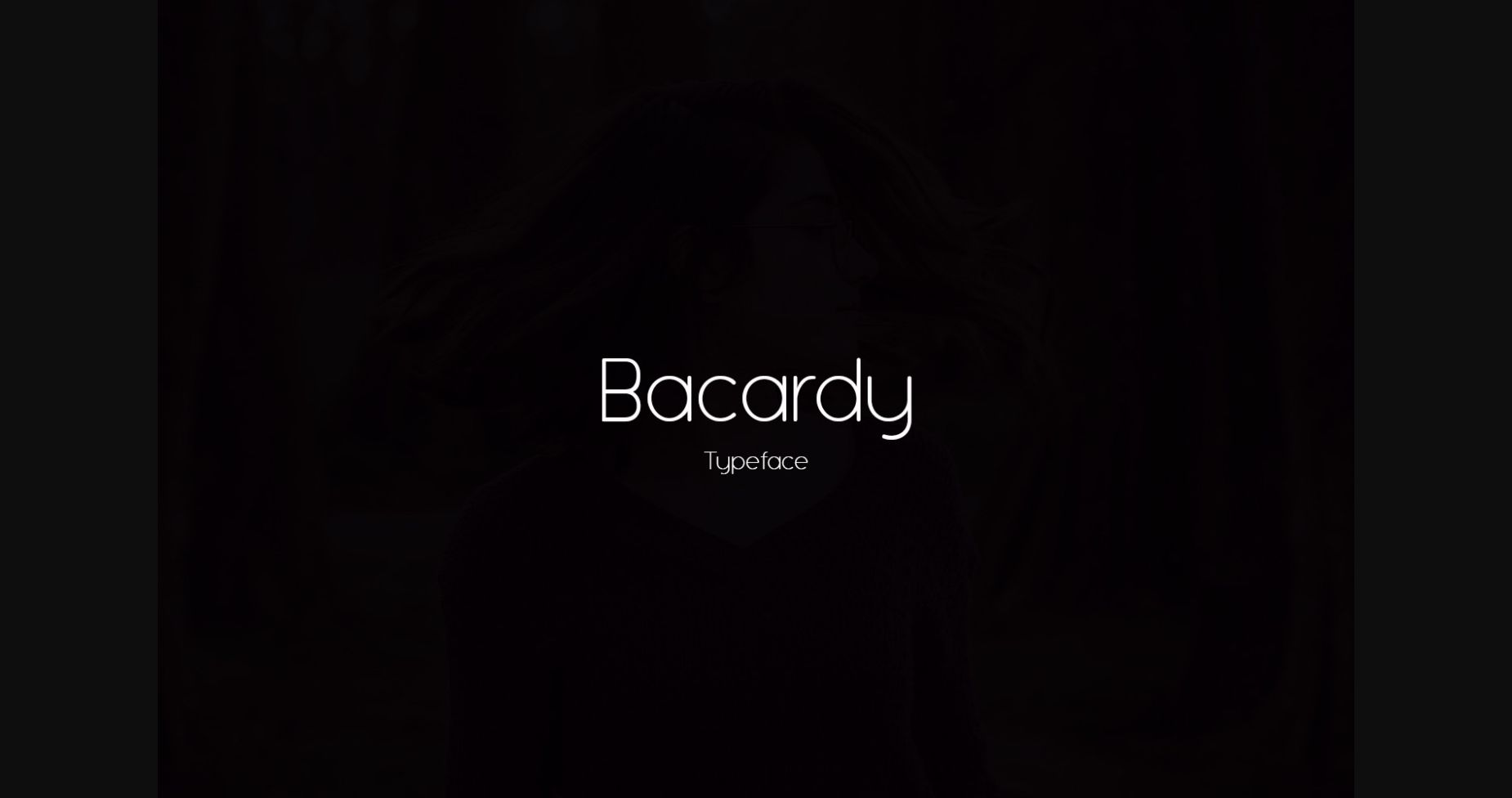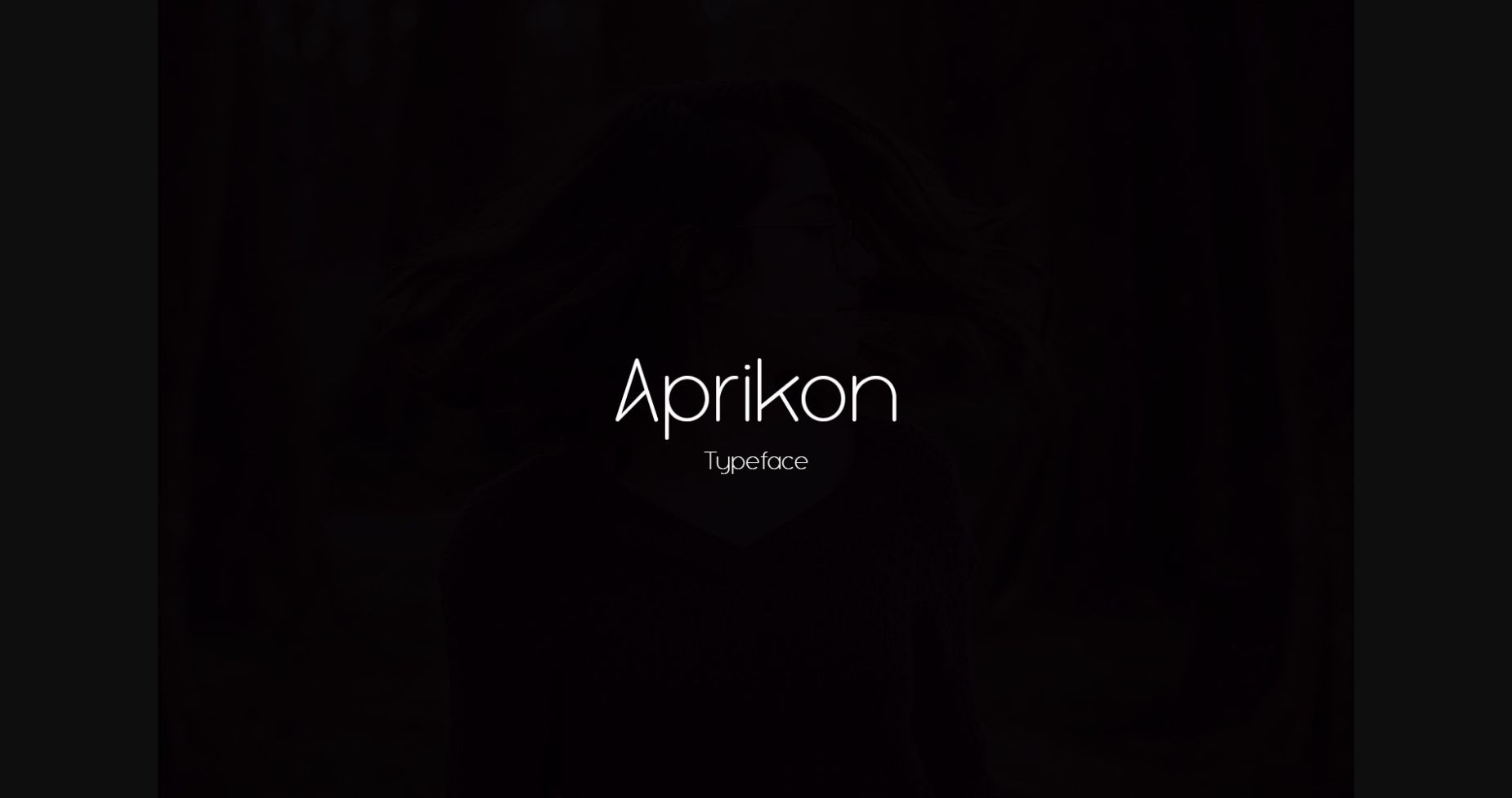
HomeSans Serif FontsBacardy Font Sans Serif Fonts Bacardy Font FacebookTwitterPinterestWhatsApp 1 of 5 ... Bacardy Font Poster 2... Bacardy Font Poster 3... Bacardy Font Poster 4... Bacardy Font Poster 5... About Bacardy Font Bacardy is a thin lettered and clean sans serif font. It can easily be matched to an incredibly large set of projects, so add it to your creative ideas and notice how it makes them stand out! DOWNLOAD NOW 145 0 People also explored Gotcha Font Sweet Baby Blackboard Font Arnprior Galinta Font Alfie Sunday Font Futharic Font Victory Rose Font Winter Snowie Font Calliretta Font Kaktoes Font TagsBacardyBacardy Font Previous articleTecnik FontNext articleCarbon Font LEAVE A REPLY Cancel reply Comment: Please enter your comment! Name:* Please enter your name here Email:* You have entered an incorrect email address! Please enter your email address here Website: Save my name, email, and website in this browser for the next time I comment. Unlock Endless Creativity with the FREE September Clipart Huge Bundle (Valued at $700!) Personal Use Free Sarwendah Personal Use Free Read more Bosk Personal Use Free Read more Twisty Girlz Personal Use Free Read more Scarlove Personal Use Free Read more BLOG Using Fonts in Digital Marketing: Tips to Strengthen Your Brand Identity In the realm of digital marketing, every visual element plays a crucial role in shaping a brand's identity, and fonts are no exception. The... Exploring Font Trends The 10 Best Handwriting Fonts to Add Personality to Your Designs Transform Your Website: Elevate Your Typography with 7 Best Web Font Generators